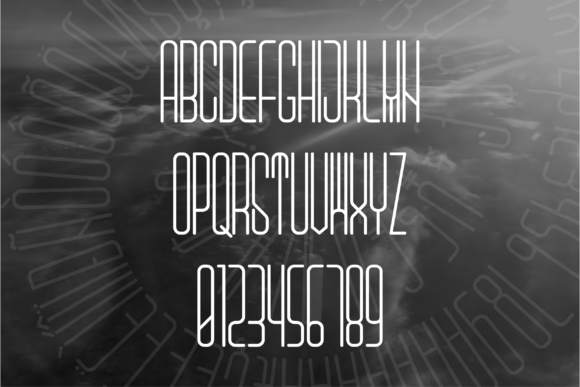
Introducing Desolation Font: The Ultimate Futuristic Sans-Serif for Modern Designs
Are you tired of using the same old fonts in your designs? Look no further! Desolation Font is here to revolutionize your creative projects with its sleek, futuristic, and perfectly balanced aesthetic. This narrow, all-caps, sans-serif font is designed to complement any design need, making it a must-have for designers and crafters alike.
The Perfect Balance of Smooth and Sharp
Desolation Font boasts a unique blend of smooth and sharp lines, creating a visually stunning effect that will elevate your designs to the next level. The font’s narrow and tall structure makes it perfect for headlines, titles, and any other design element where space is limited. The all-caps design ensures that your text remains bold and attention-grabbing, while the sans-serif style provides a clean and modern look.
Key Features of Desolation Font
- Narrow and tall structure: Perfect for headlines, titles, and designs where space is limited
- All-caps design: Bold and attention-grabbing text that demands attention
- Sans-serif style: Clean and modern look that complements any design
- Perfectly balanced mix of smooth and sharp lines: Visually stunning effect that elevates your designs
- Futuristic aesthetic: Adds a touch of innovation and forward-thinking to your designs
Why Choose Desolation Font?
With so many fonts available, why choose Desolation Font? Here are just a few reasons why designers and crafters are falling in love with this futuristic sans-serif:
- Versatility: Desolation Font can be used in a wide range of design projects, from posters and flyers to websites and social media graphics
- Legibility: The font’s clear and bold design ensures that your text remains legible, even at small sizes
- Uniqueness: Desolation Font’s futuristic aesthetic sets it apart from more traditional fonts, giving your designs a unique edge
Design Inspiration with Desolation Font
Desolation Font is the perfect choice for designers looking to add a touch of futurism to their work. Here are a few design ideas to get you started:
- Posters and flyers: Use Desolation Font to create bold and eye-catching headlines that grab attention
- Websites and landing pages: Add a touch of futurism to your website design with Desolation Font’s sleek and modern aesthetic
- Social media graphics: Use Desolation Font to create engaging and shareable social media graphics that stand out from the crowd
- Branding and logos: Create a unique and memorable brand identity with Desolation Font’s futuristic sans-serif design
Desolation Font is a game-changing addition to any designer’s toolkit. With its perfectly balanced mix of smooth and sharp lines, futuristic aesthetic, and versatility, this narrow, all-caps, sans-serif font is sure to elevate your designs to new heights. Whether you’re a seasoned designer or just starting out, Desolation Font is the perfect choice for anyone looking to add a touch of innovation and forward-thinking to their work.